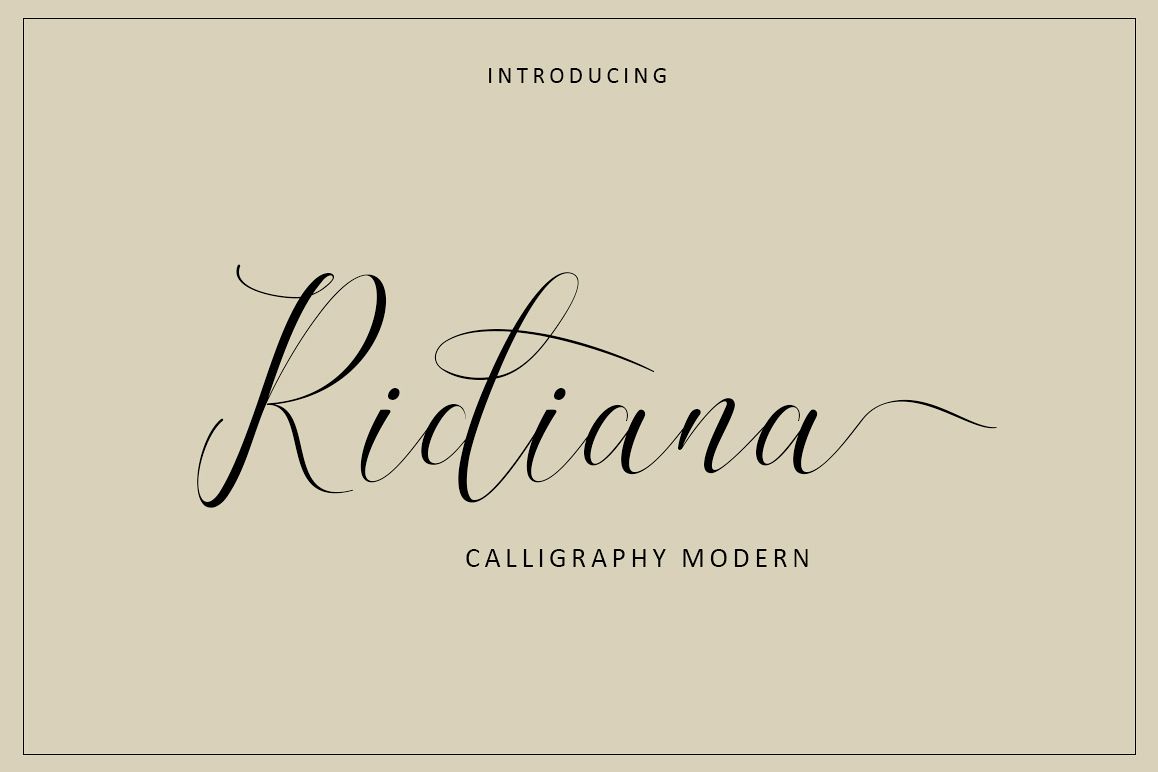
Ridiana
Hello Again...Ridiana is modern script font, every single letters has been carefully crafted to make your text looks beautiful. With modern script style this font will perfect for many different project, example: invitations, greeting cards, posters, name card, quotes, blog header, branding, logo, fashion, apparel, letter, stationery and more !
Ridiana contains standard characters, uppercase, lowercase letters, numbers, swashes, dashes, punctuation, and international characters.